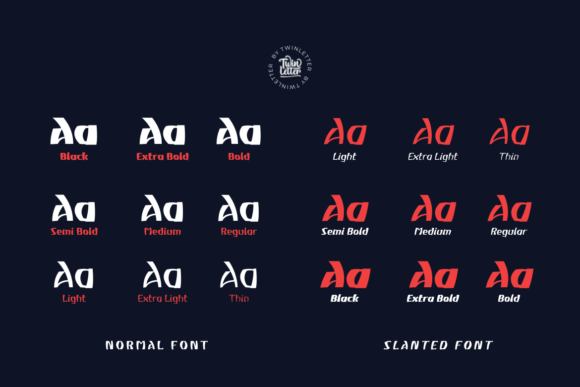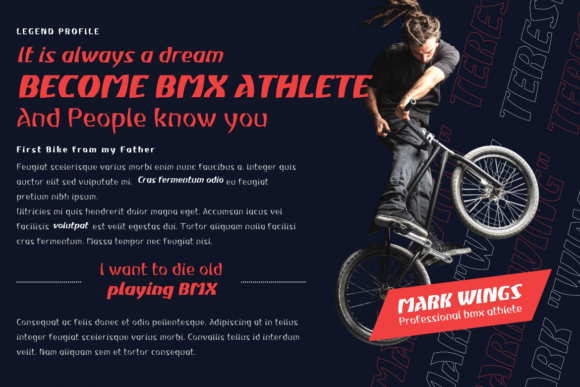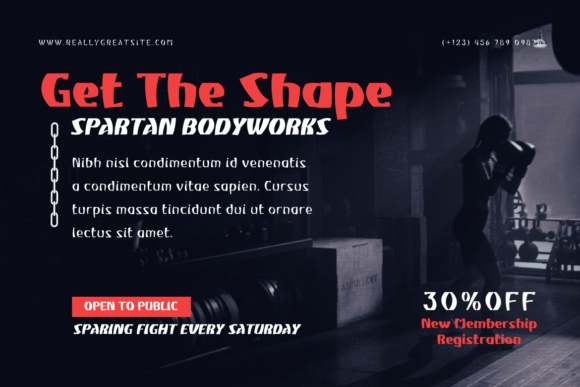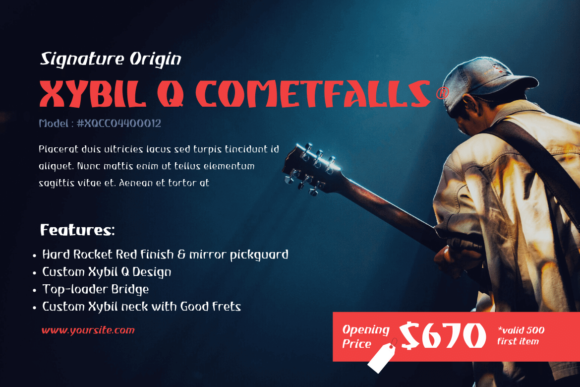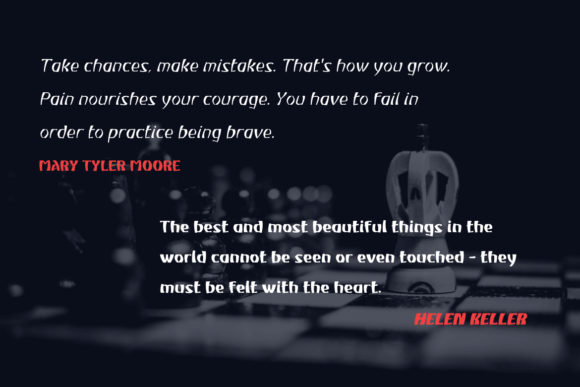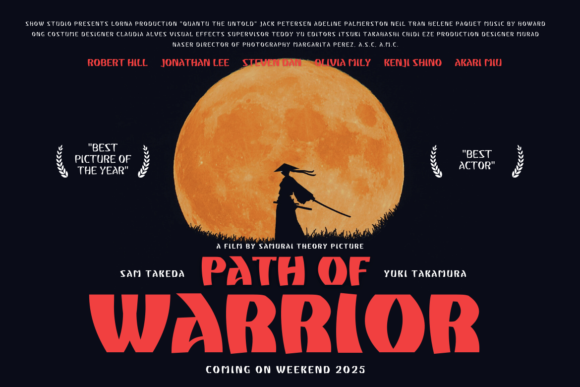
Introducing Atiku Font: The Ultimate Display Font for Creative Projects
Are you tired of using the same old fonts for your design projects? Look no further than Atiku Font, a cool, bold, and vintage-styled display font that’s sure to take your creations to the next level. With its unique blend of classic and modern elements, Atiku Font is the perfect addition to any design project, from crafting and scrapbooking to graphic design and digital art.
The Story Behind Atiku Font
Atiku Font is a carefully crafted display font that’s designed to make a statement. Its bold and vintage-inspired style is perfect for creating eye-catching headlines, titles, and captions that demand attention. Whether you’re a professional designer or a crafty hobbyist, Atiku Font is sure to become a favorite in your collection.
Key Features of Atiku Font
- Cool and Bold Style: Atiku Font features a bold and edgy style that’s perfect for creating striking designs that stand out from the crowd.
- Vintage Inspiration: With its classic and vintage-inspired elements, Atiku Font adds a touch of nostalgia and sophistication to any design project.
- Display Font: Atiku Font is specifically designed as a display font, making it perfect for use in headlines, titles, and captions.
Uses for Atiku Font
Atiku Font is a versatile display font that can be used in a variety of creative projects, including:
- Graphic Design: Use Atiku Font to create eye-catching posters, flyers, and brochures that grab attention.
- Crafting and Scrapbooking: Add a touch of vintage charm to your scrapbook pages and craft projects with Atiku Font.
- Digital Art: Use Atiku Font to create stunning digital art pieces that showcase your creativity.
- Wedding and Event Planning: Use Atiku Font to create beautiful wedding invitations, signs, and other event materials.
Tips for Using Atiku Font
To get the most out of Atiku Font, here are a few tips to keep in mind:
- Use it sparingly: Atiku Font is a bold and attention-grabbing font, so use it sparingly to avoid overwhelming your design.
- Pair it with complementary fonts: Pair Atiku Font with complementary fonts to create a visually appealing contrast.
- Experiment with colors and textures: Experiment with different colors and textures to add depth and interest to your design.
Atiku Font is a cool, bold, and vintage-styled display font that’s perfect for adding a touch of creativity and sophistication to your design projects. With its unique blend of classic and modern elements, Atiku Font is sure to become a favorite in your collection. So why wait? Download Atiku Font today and let yourself be amazed by the outcome generated!